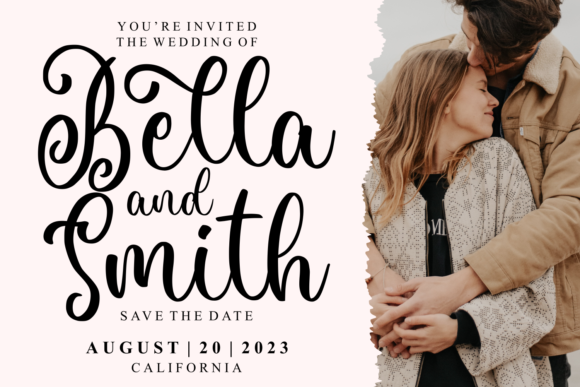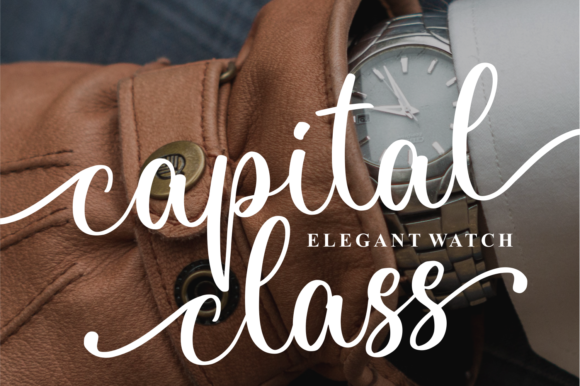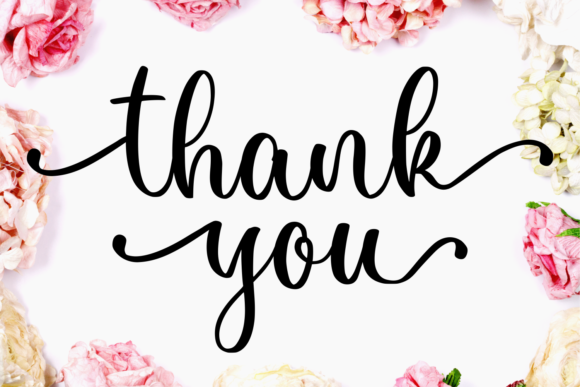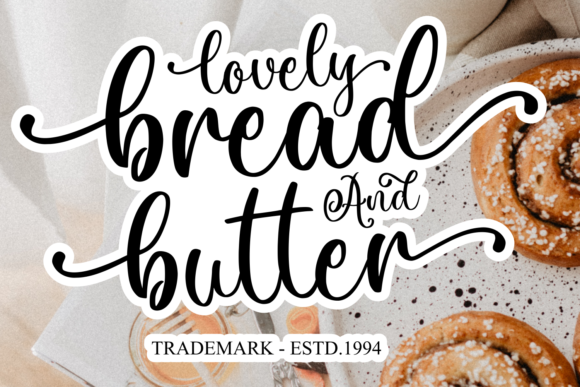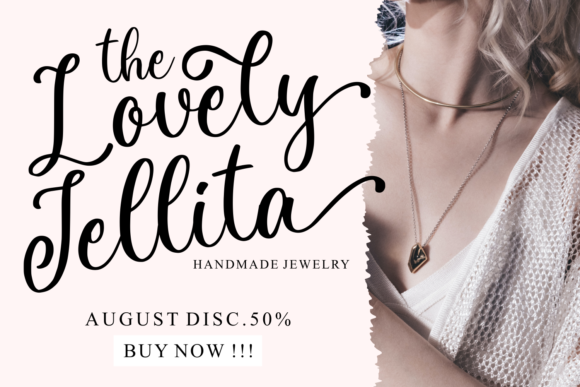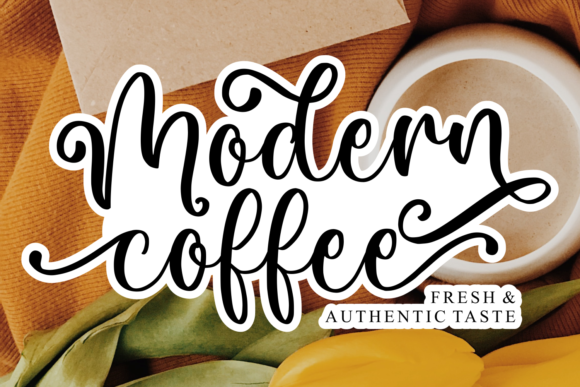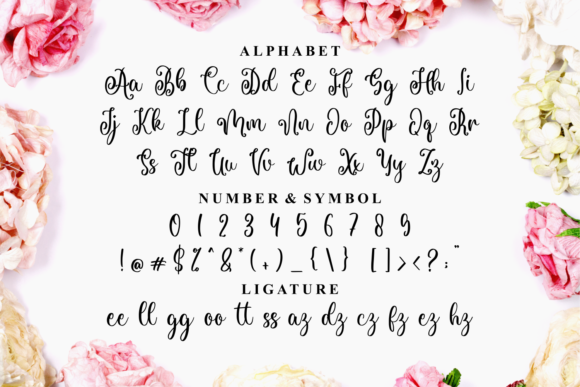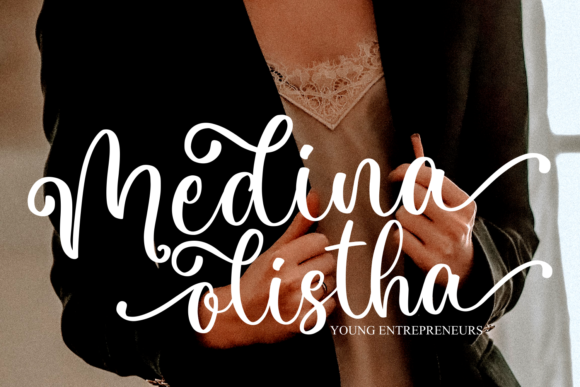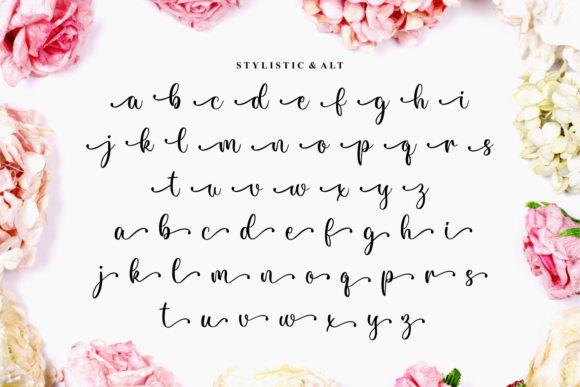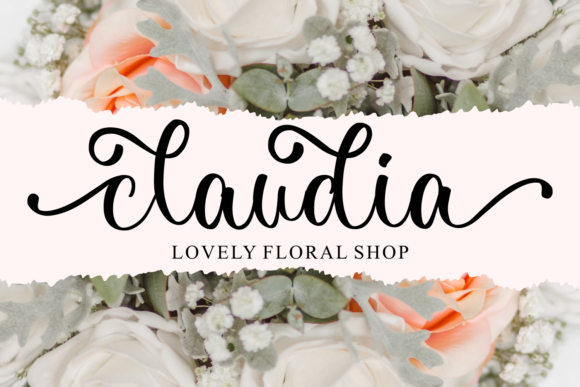
Better Matter Font
About Better Matter Font
Better Matter is a dazzling script font. It is neatly crafted and highly detailed. Better Matter is PUA encoded which means you can access all glyphs and swashes with ease!